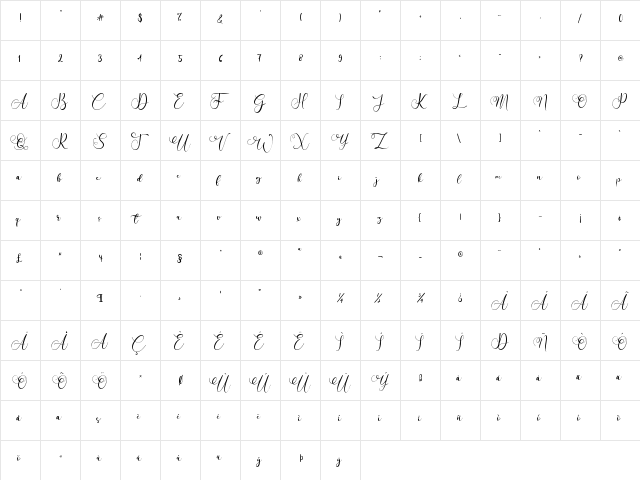
Simply Sugary Regular
Design Context for Simply Sugary Typeface
Simply Sugary is a composed and adaptable typeface that performs quietly and consistently across a wide range of design contexts.